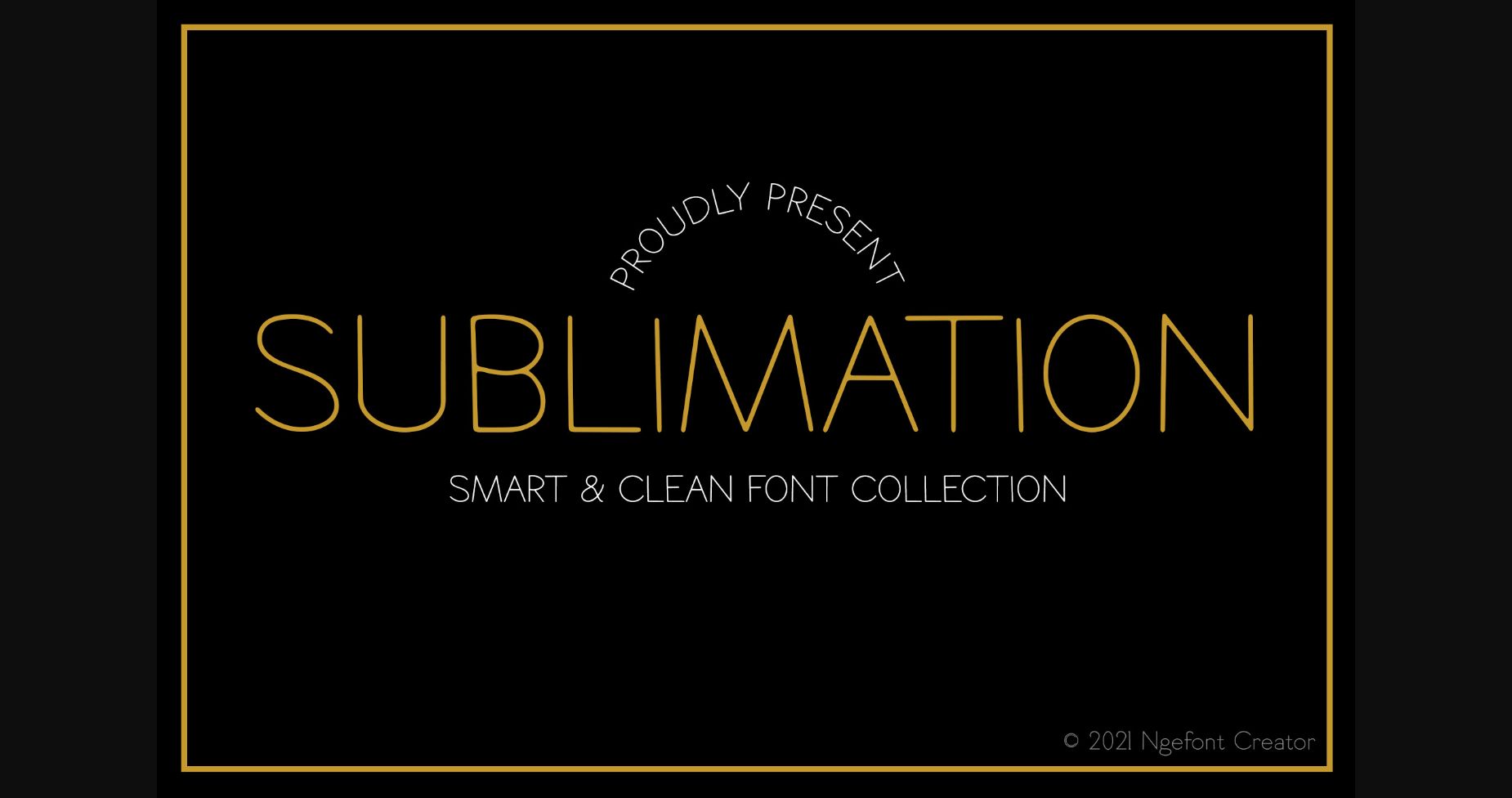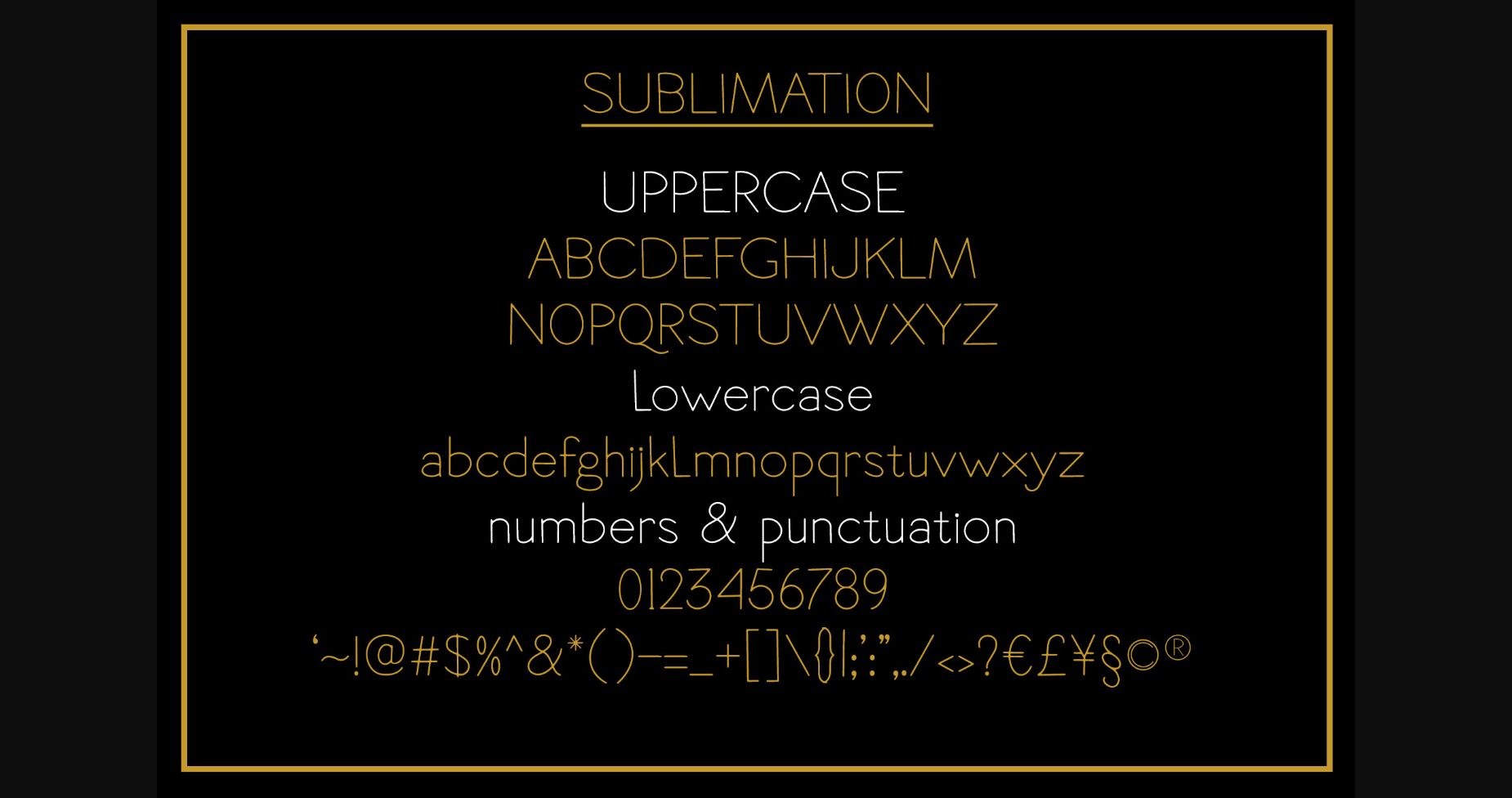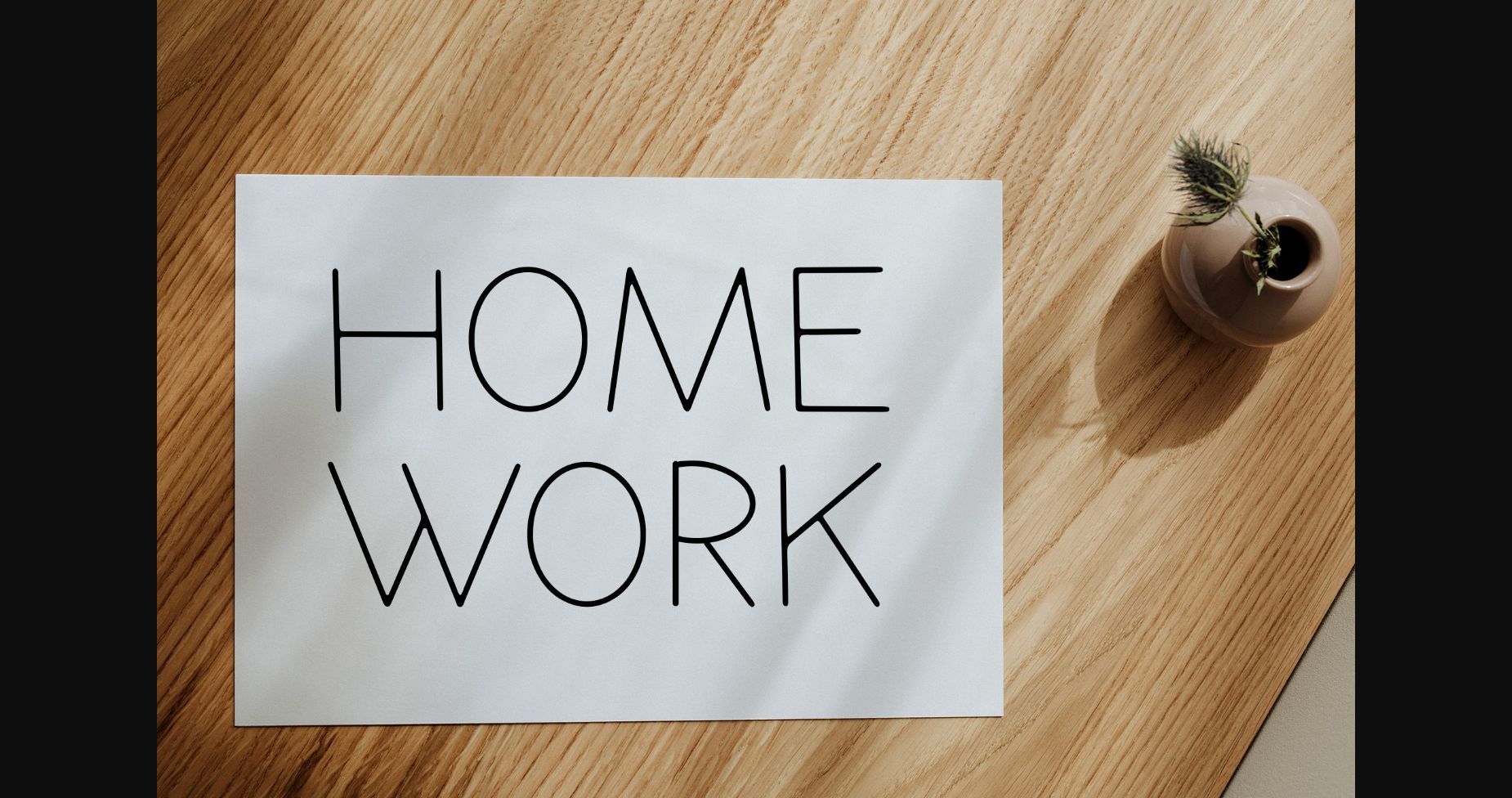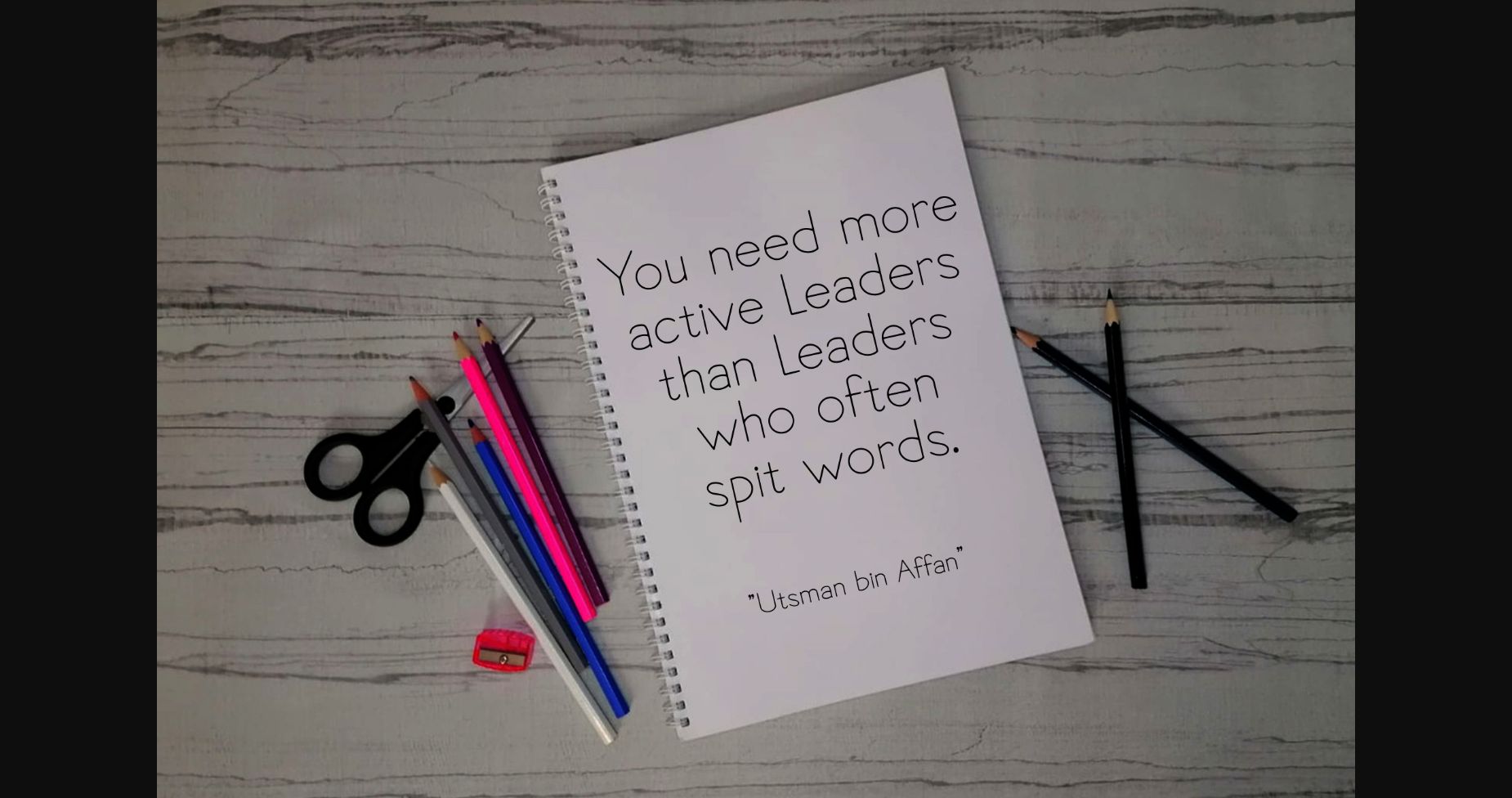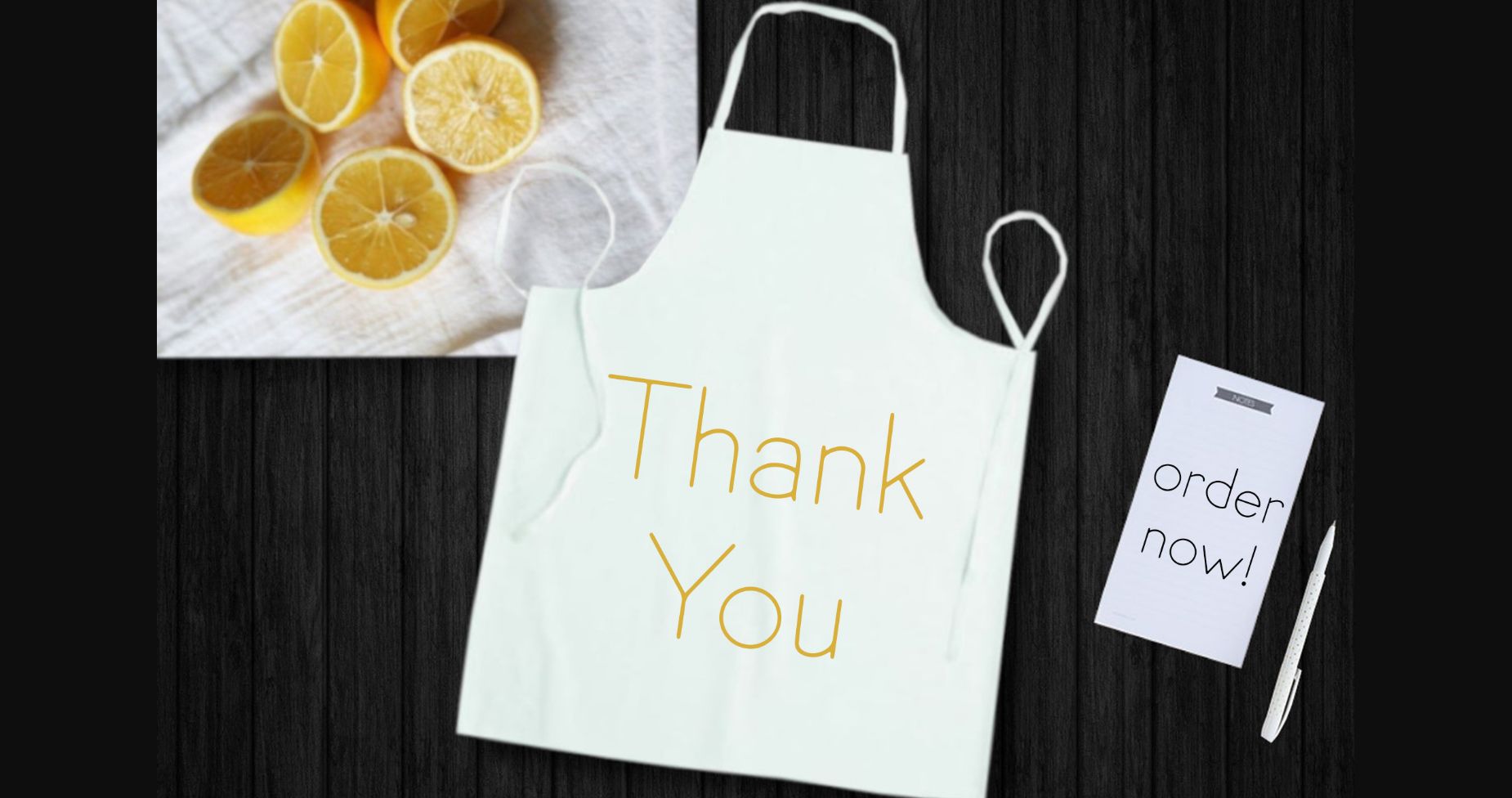
HomeSans Serif FontsSublimation Font Sans Serif Fonts Sublimation Font FacebookXPinterestWhatsApp 1 of 7 ... Sublimation Font Poster 2... Sublimation Font Poster 3... Sublimation Font Poster 4... Sublimation Font Poster 5... Sublimation Font Poster 6... Sublimation Font Poster 7... About Sublimation Font Sublimation is a thin lettered and clean sans serif font. It can easily be matched to an incredibly large set of projects, so add it to your creative ideas and notice how it makes them stand out! DOWNLOAD NOW People also explored Aworan Font Blackburn Font Ellyshalira Font Mahardhika Font Humanity Font Mother Font Yves Yvesdrawing Font Gold Shery Font Master Faith Font 324 0 TagsSublimation Font Previous articleTaco and Tequila FontNext articleLamora Font LEAVE A REPLY Cancel reply Comment: Please enter your comment! Name:* Please enter your name here Email:* You have entered an incorrect email address! Please enter your email address here Website: Save my name, email, and website in this browser for the next time I comment. Personal Use Free Alphakind Personal Use Free Read more about this font Child Witch Personal Use Free Read more about this font Laneway Personal Use Free Read more about this font The Kingdom Personal Use Free Read more about this font BLOG Fonts That Capture the Spirit of New York City New York City is more than just a place—it’s an experience, a rhythm, a visual language... To increase your work productivity, choose the most readable fonts. Transform Your Website: Elevate Your Typography with 7 Best Web Font Generators Exploring Font Trends